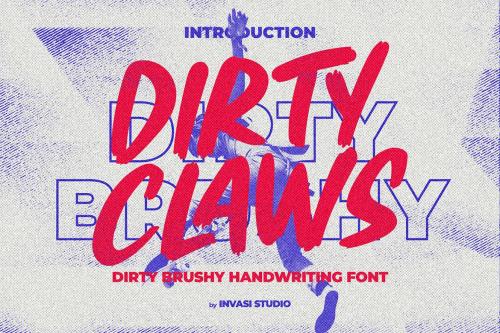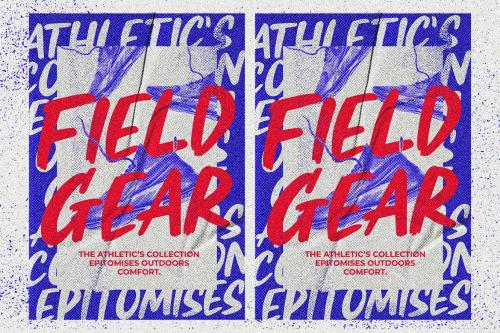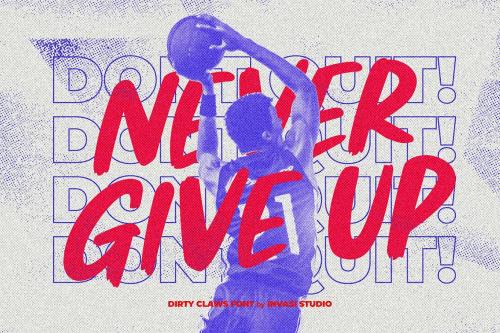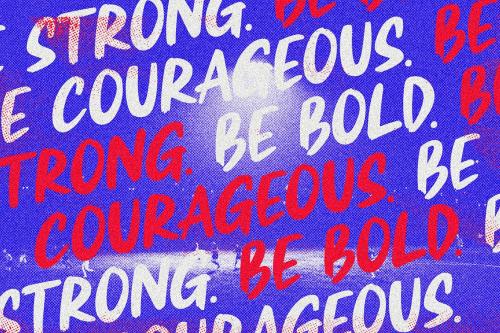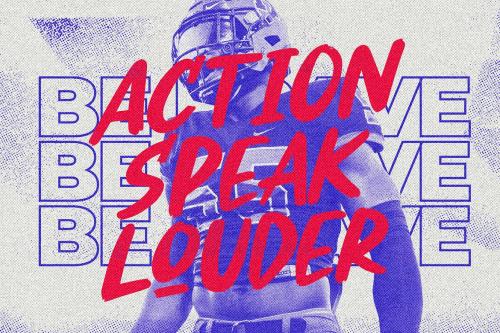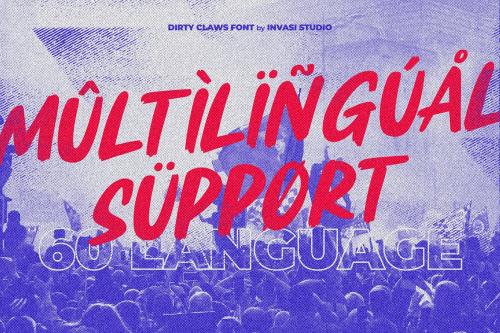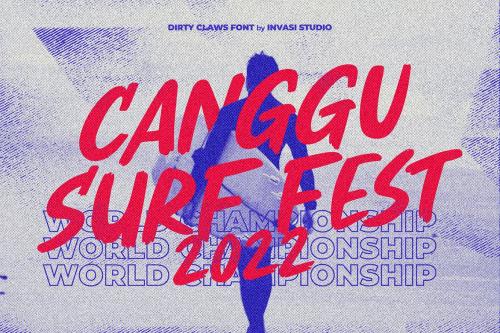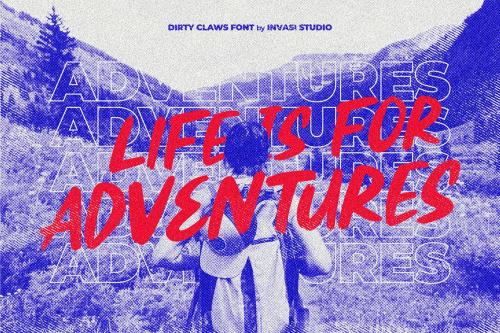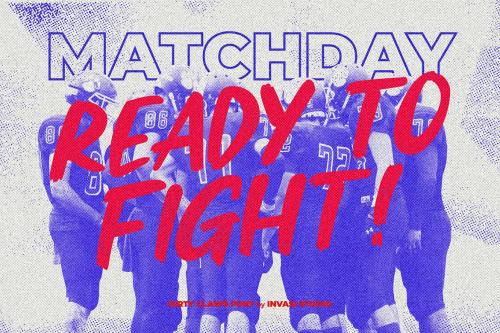
脏爪 - 研究展示字体
Dirty Claws - Brushy Display Font
**Dirty Claws** is an all-caps aggressive dirty brush font. With a bold, aggressive style, it will add a bold and strong touch to your projects, inspiring you to create something bold as well. Besides that, this font is also equipped with Alternative Characters, Standard Ligatures, and multi-language support. **Dirty Claws** is ideal for headings, flyers, greeting cards, product packaging, book covers, printed quotes, logotype, and album covers.
**Dirty Claws** is an all-caps aggressive dirty brush font. With a bold, aggressive style, it will add a bold and strong touch to your projects, inspiring you to create something bold as well. Besides that, this font is also equipped with Alternative Characters, Standard Ligatures, and multi-language support.
**Dirty Claws** is ideal for headings, flyers, greeting cards, product packaging, book covers, printed quotes, logotype, and album covers.
**Features:**
- Total 211 Glyph
- Uppercase
- Numerals & Punctuation
- Alternates & Ligature
- Multilanguage Supports 60+ Latin based languages